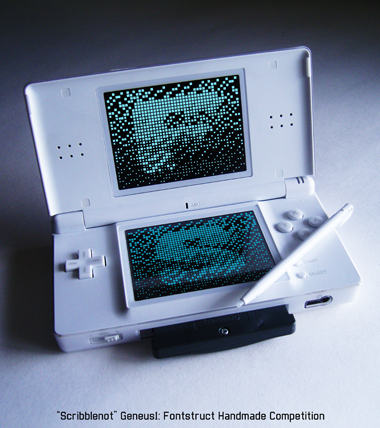
• Digitally hand-scribbled over a hand-drawn typeface. Do not try this with your regular font making software. Blank scribbles on the spacebar. Lowercase has tighter spacing on characters A, F, L, T, V, W, Y, etc. Terminal zaps on the parentheses. Center-faded scribbles on the brackets. Square-faded scribbles on the braces.